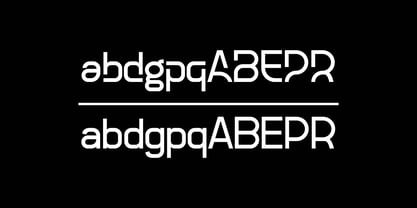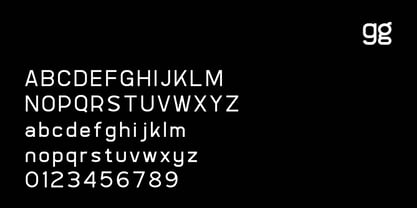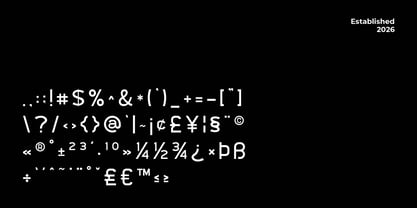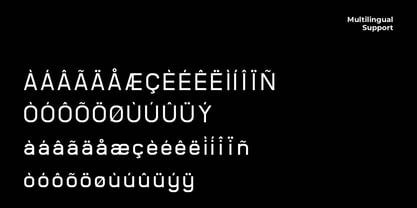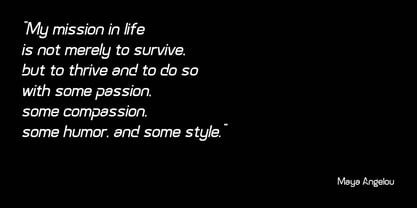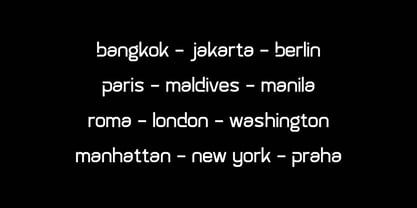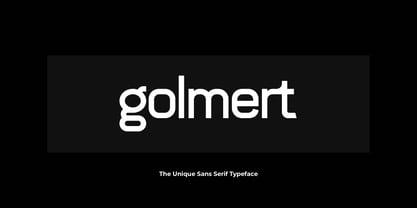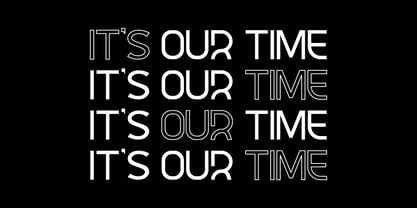
Golmert
The Golmert Font Family was designed by Iwan Alwan and published by Artiveko. Golmert contains 2 styles and family package options. More about this family
Golmert is a modern sans serif font inspired by the bold, clean typography often seen in film posters and movie title sequences. With strong letterforms, sharp details, and a confident structure, Golmert delivers a cinematic feel that instantly elevates any visual project. Perfect for movie titles, trailers, posters, branding, logos, YouTube thumbnails, social media graphics, and editorial headlines, Golmert brings a dramatic yet professional tone. Its balanced proportions ensure excellent readability while keeping a stylish, screen-ready presence. Golmert includes uppercase and lowercase letters, numerals, punctuation, and multilingual support, making it versatile for both digital and print use. Create powerful, cinematic visuals with Golmert — a film-style sans serif font made for bold storytelling and visual impact.